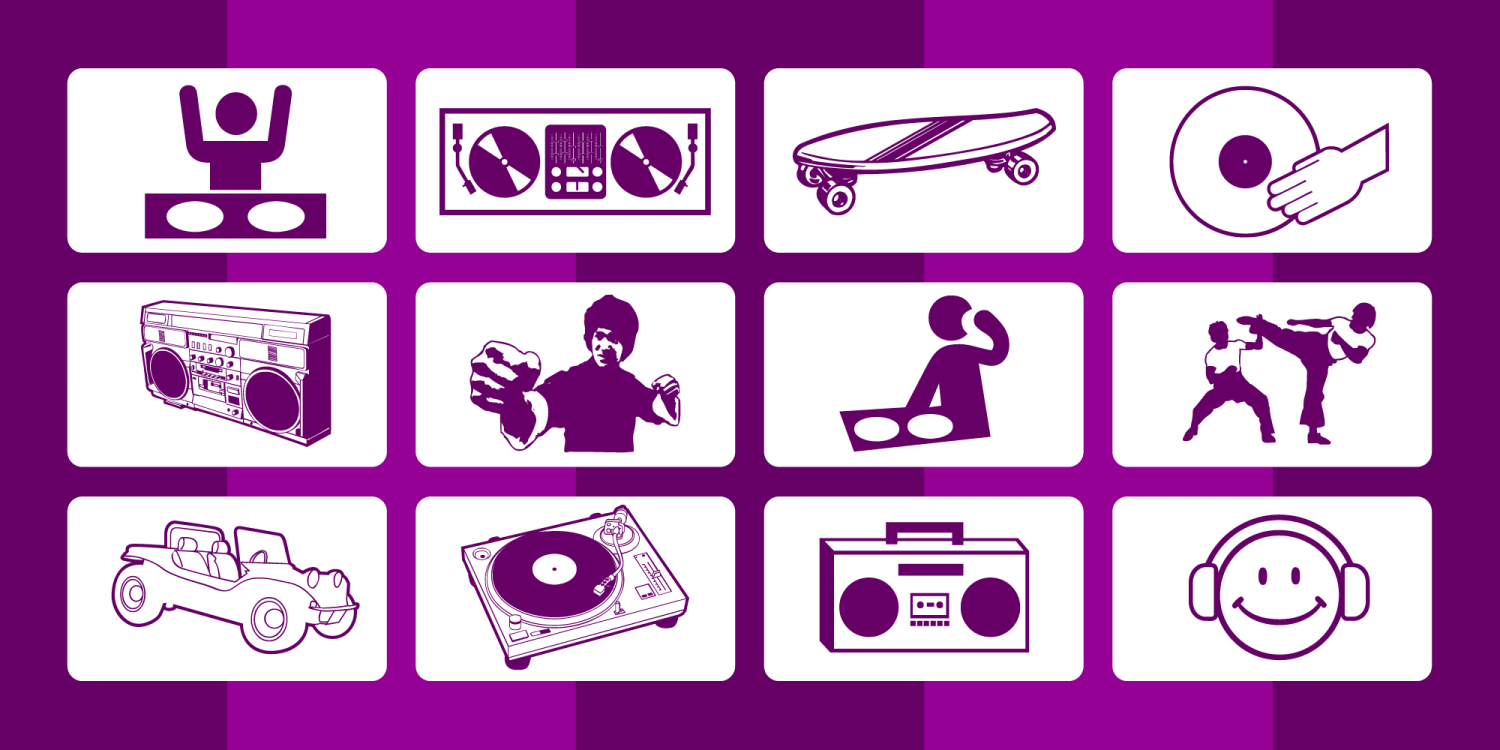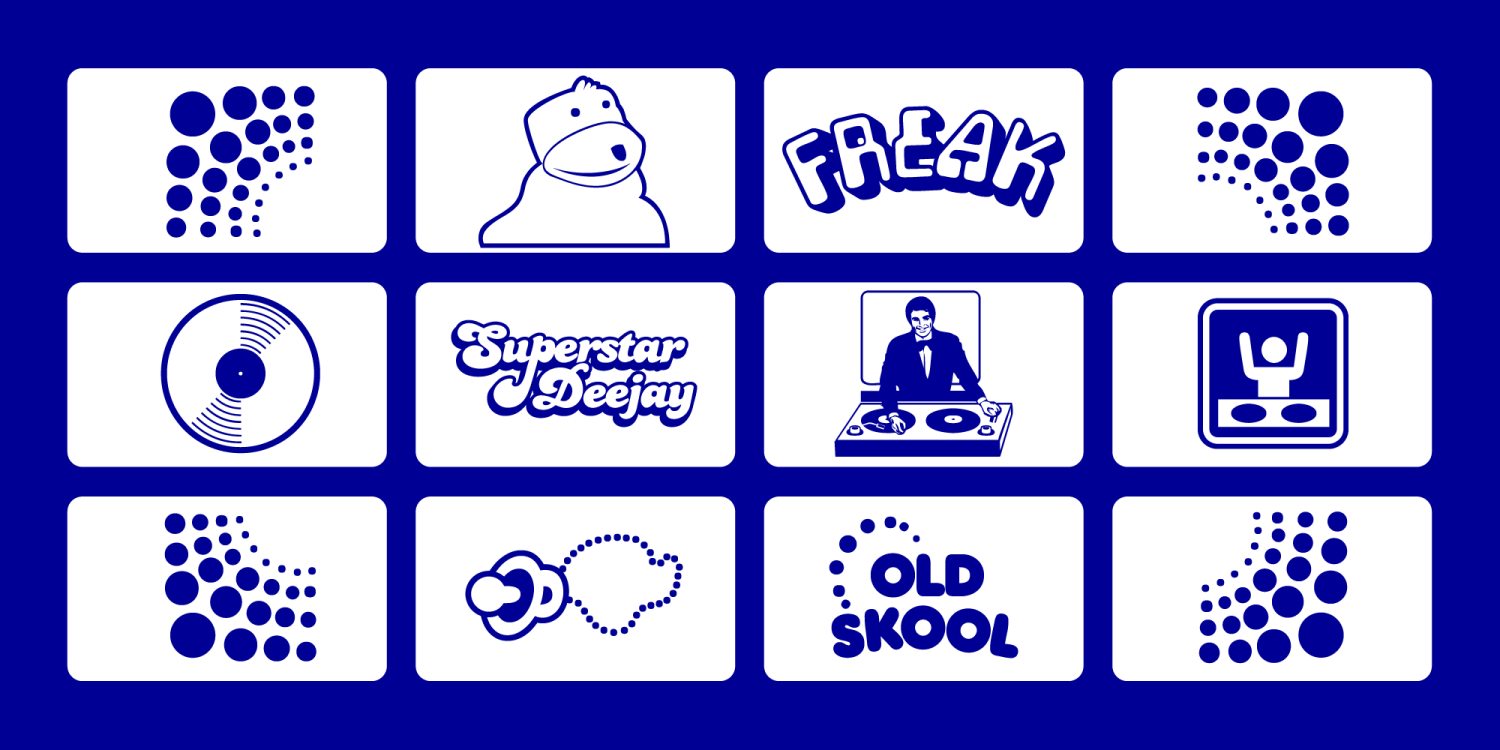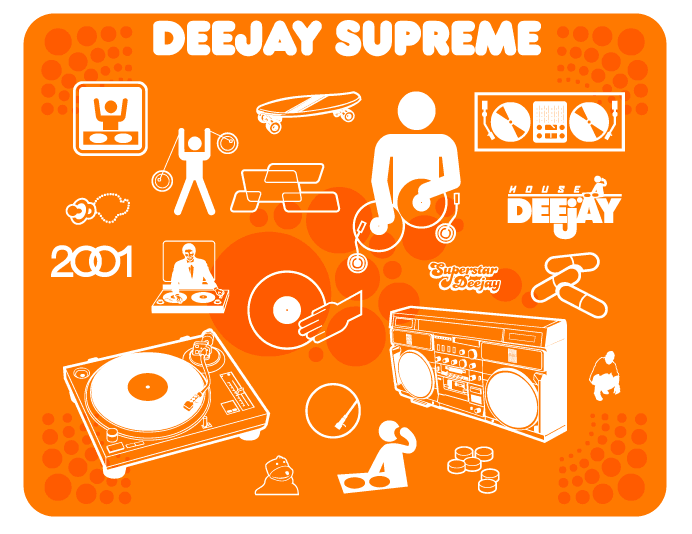
After I made Superstar DJ, the people up top made some serious noise. It was only a matter of time before a bigger, bolder and brassier set was created. I can give you a 99% guarantee that this is the only font in the world where you are going to find Flat Eric, glowstickers and ecstasy occupying the same font set.